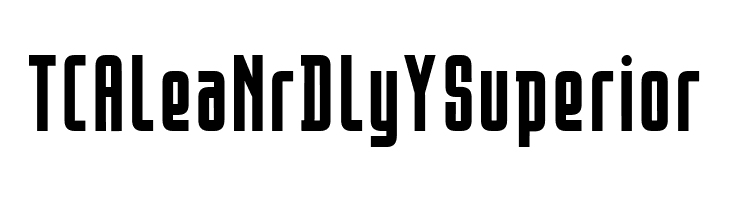
RockoFLF-Bold Font
- Font: RockoFLF-Bold
( Fonts by Bartek Nowak - www.nowak.tv/fontoholic/ )
A bold, geometric font with a modern and clean aesthetic.